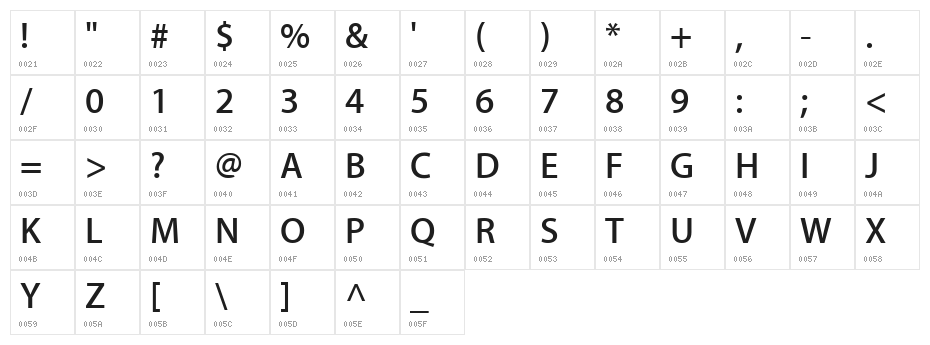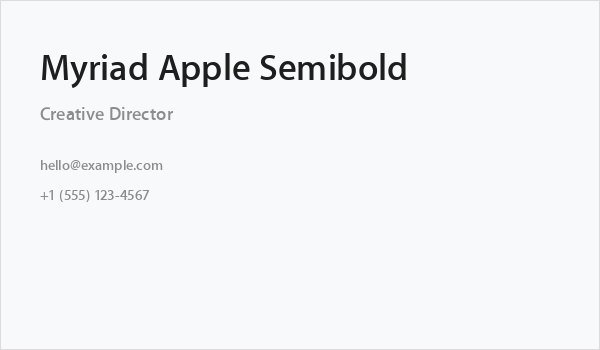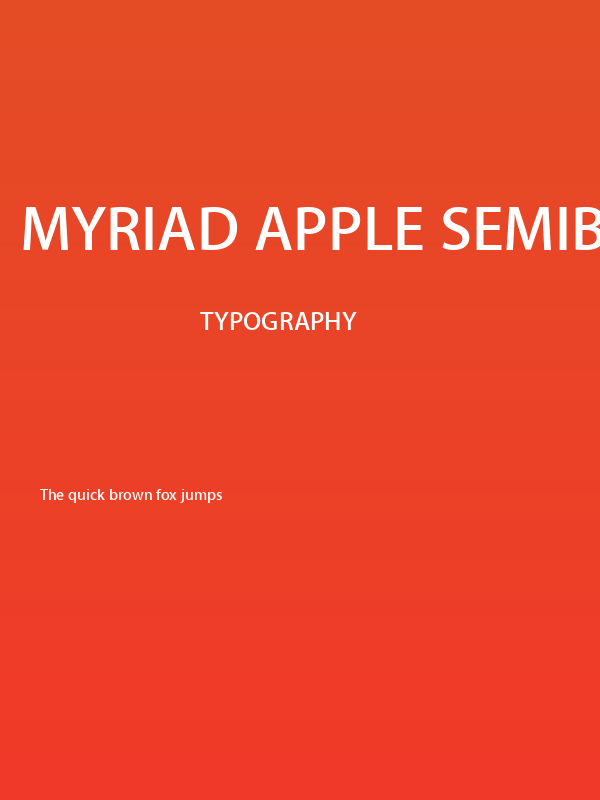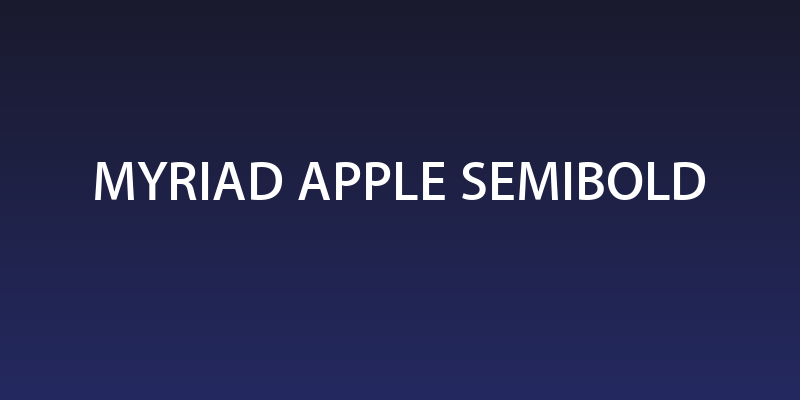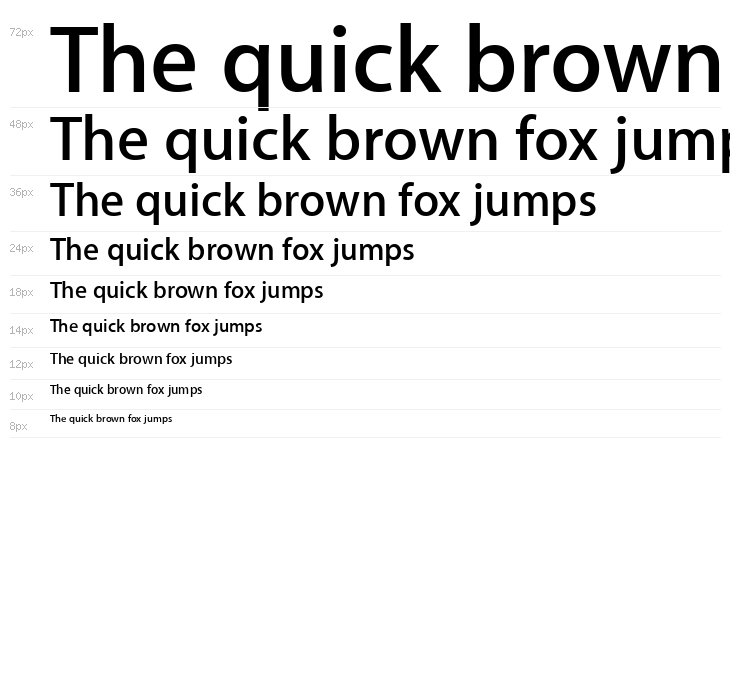
Myriad Apple Semibold Font
Myriad Apple Semibold Description
This font presents a clean and modern sans-serif style, characterized by its smooth curves and balanced proportions. The letters are evenly spaced, providing excellent readability across both uppercase and lowercase characters. The numerals are clear and distinct, making them suitable for various applications. Special characters are well-defined, maintaining the font's overall aesthetic. The design is versatile, making it suitable for both digital and print media. Its semi-bold weight adds a touch of emphasis without overpowering the text, making it ideal for headlines and subheadings.